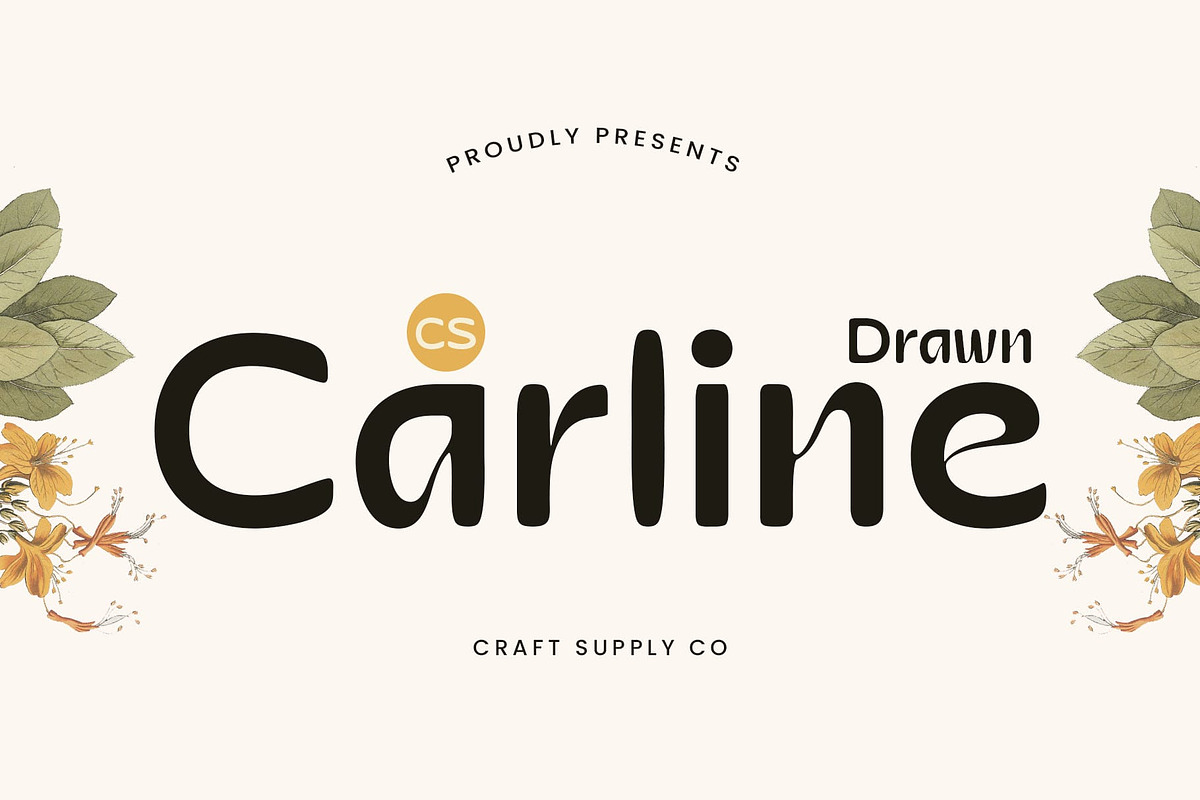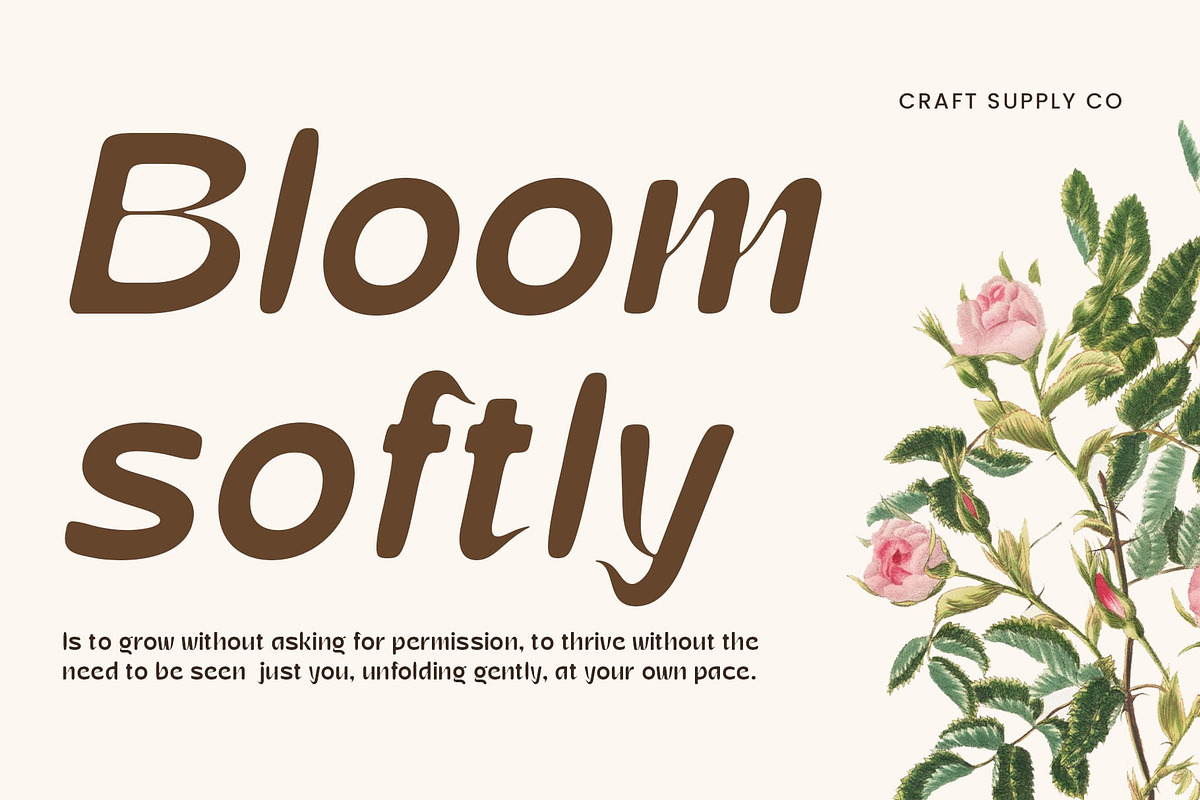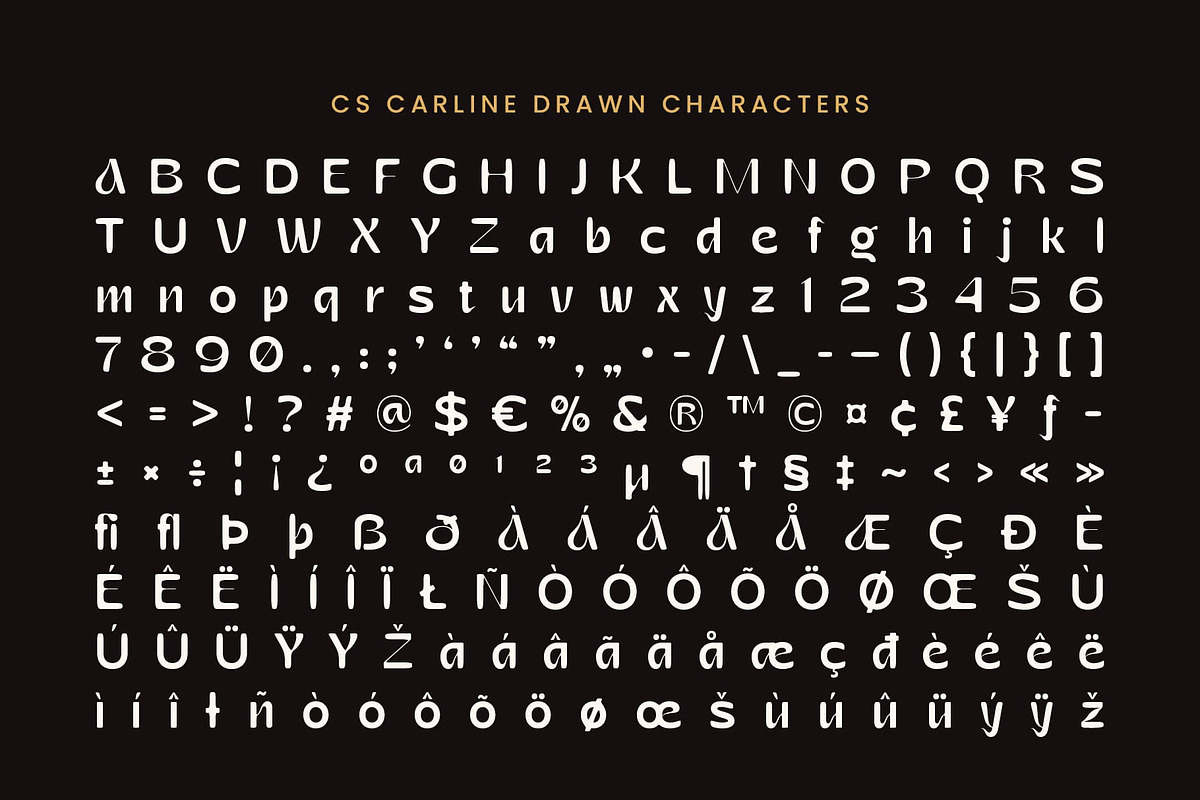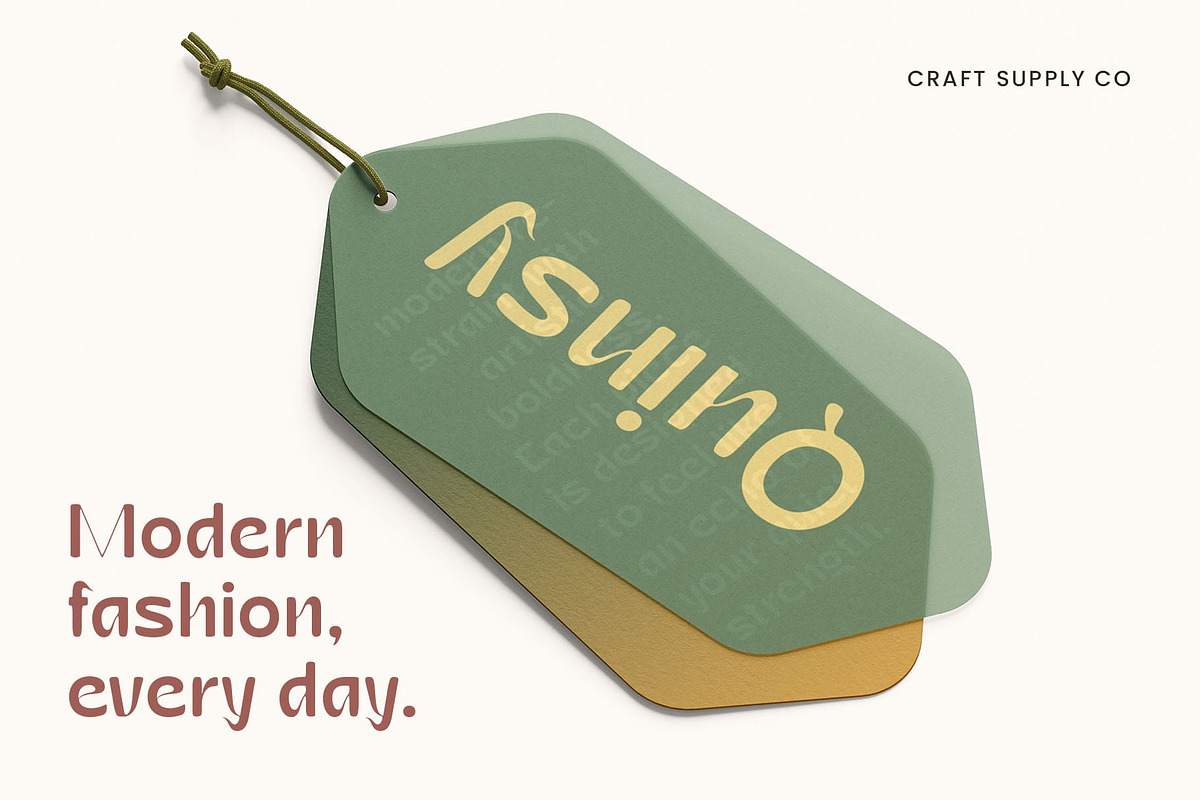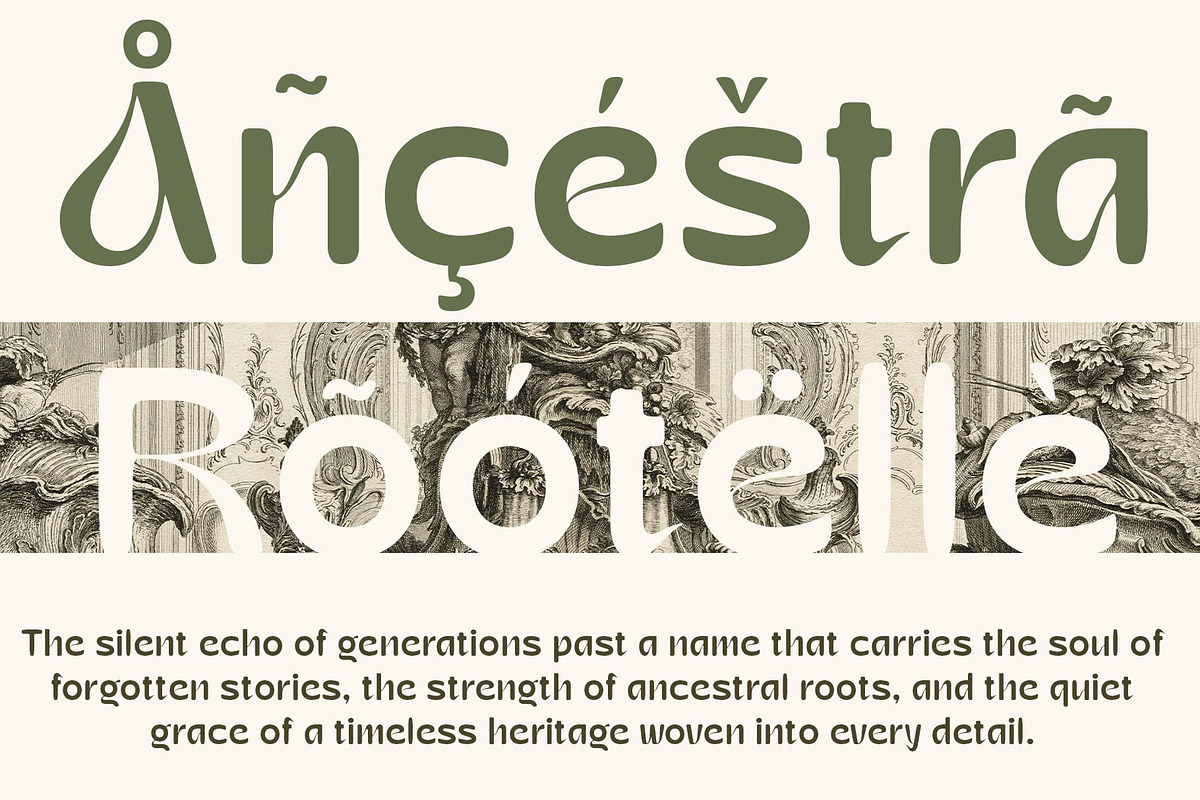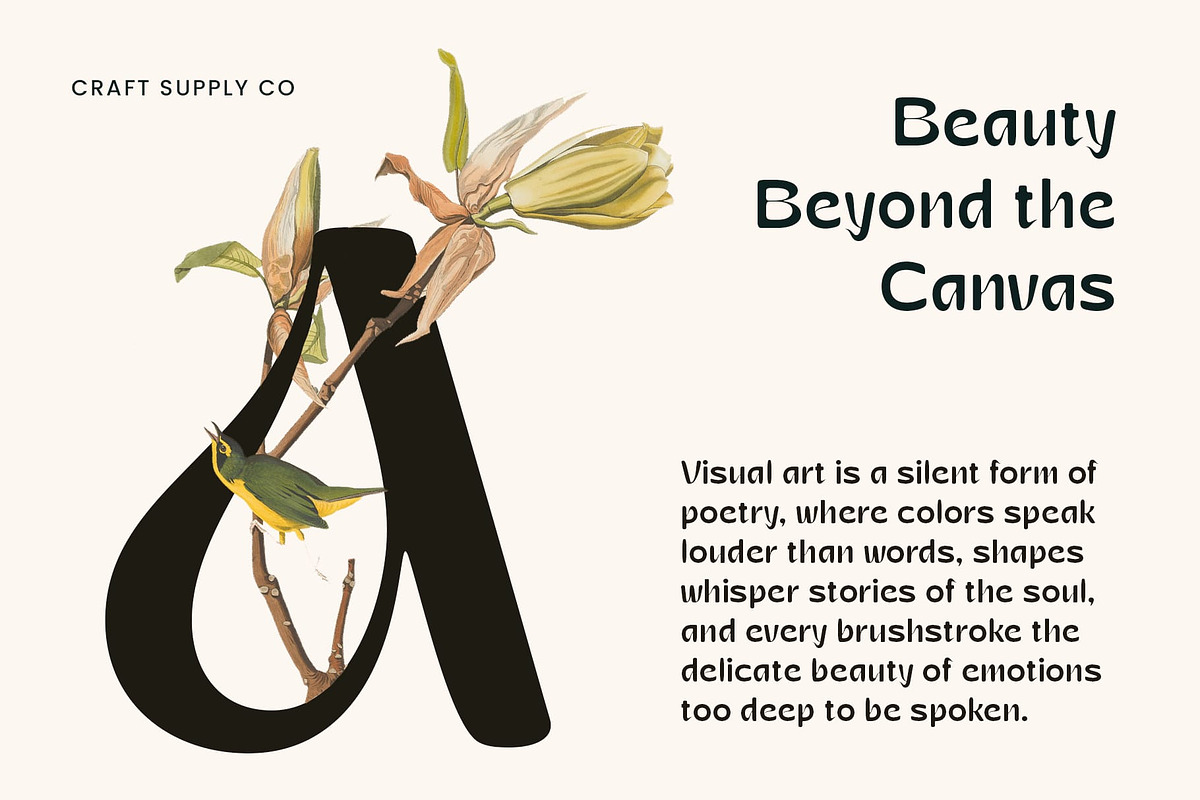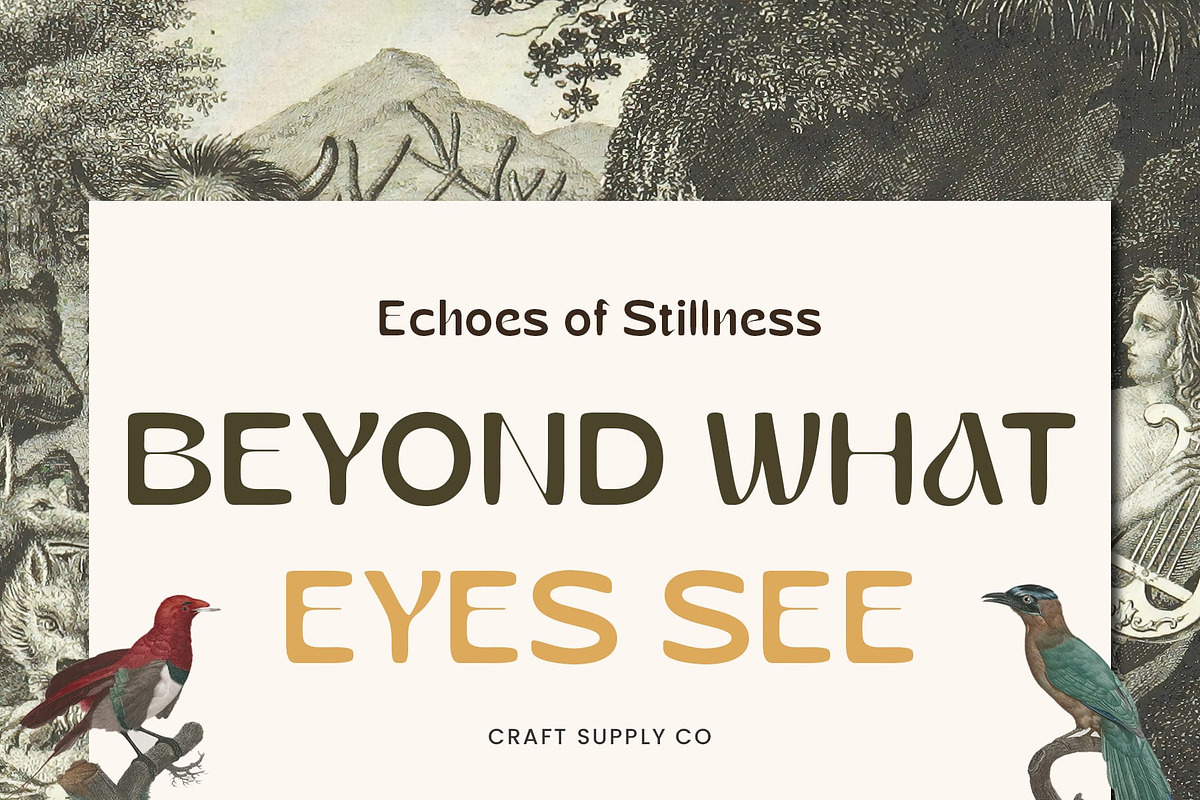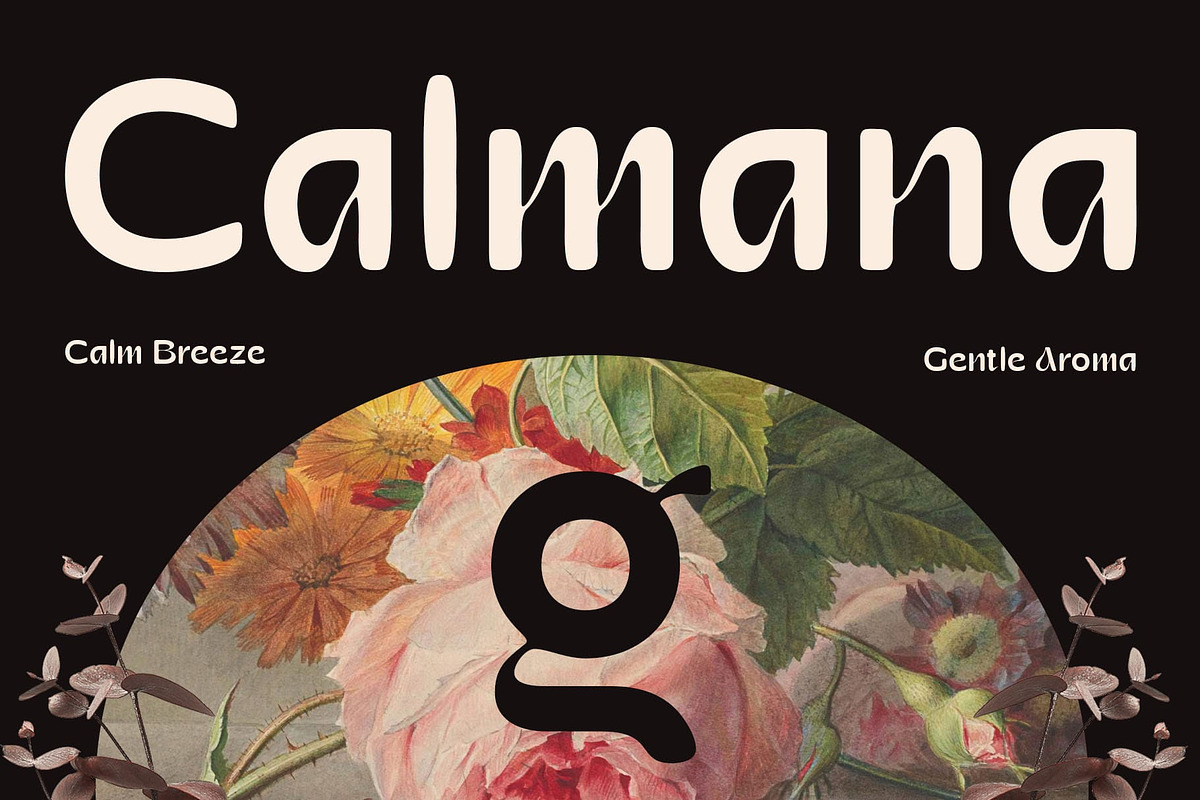
CS Carline Drawn
CS Carline Drawn: Where Art Nouveau Meets Modern Grace
Modern Sans-Serif Display with Art Nouveau Influence This is a modern sans-serif display font that artfully blends the flowing elegance of Art Nouveau shapes with sleek, minimalist lines. The result is a graceful and refined design that captures both classic beauty and contemporary clarity.
Expressive Drawn Effect for Organic Charm A distinctive drawn effect enhances the font with an expressive, handcrafted texture. This organic touch brings warmth and character to the clean structure, making this display sans serif modern font feel both artistic and human. It’s perfect for adding a unique personality to your design.
Elegant and Contemporary Visual Identity The combination of elegant curves and modern simplicity gives this art nouveau font a timeless appeal. Its stylish form is ideal for designs that aim to strike a balance between the sophistication of the past and the freshness of the present.
Ideal for Artistic and Creative Projects From creative branding to editorial layouts, this art nouveau font works beautifully in projects that demand elegance and originality. Its versatility and expressive style make it a strong choice for artistic visuals, boutique identities, packaging, and more.